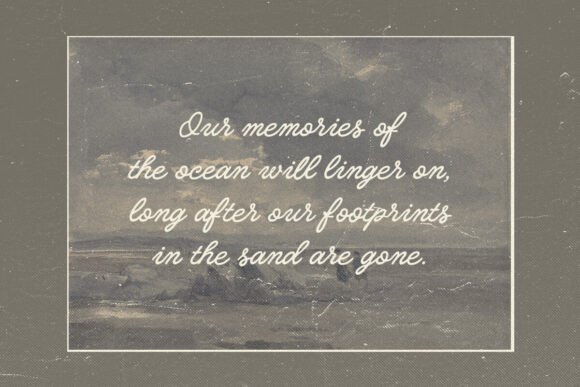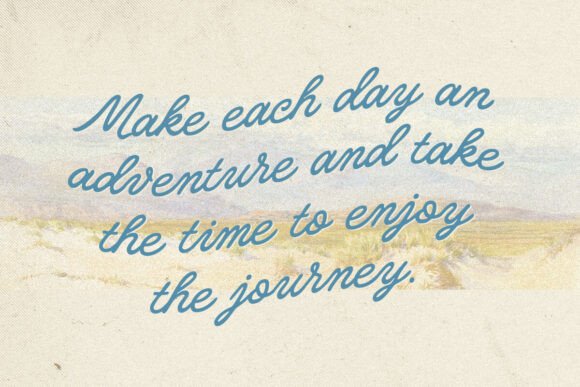
Lodiane Script Font
Lodiane Script is a vintage-inspired script font with elegant, flowing curves and a handcrafted feel. Its retro aesthetic, subtle shadowing, and smooth strokes make it perfect for branding, logos, packaging, invitations, and editorial design. With a nostalgic yet versatile charm, it’s ideal for projects that blend classic sophistication with a touch of rustic warmth.